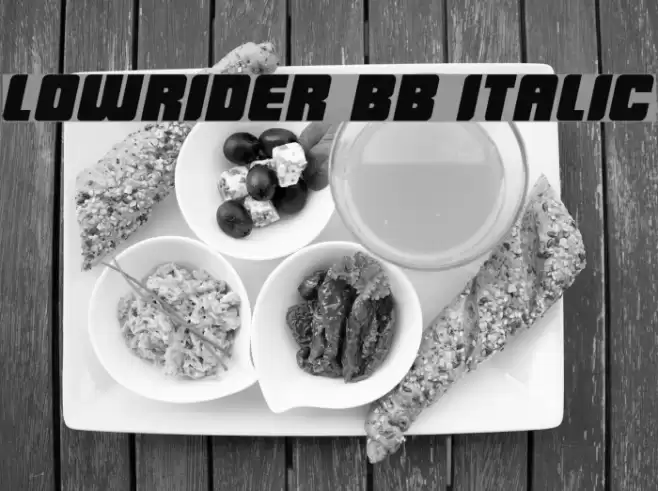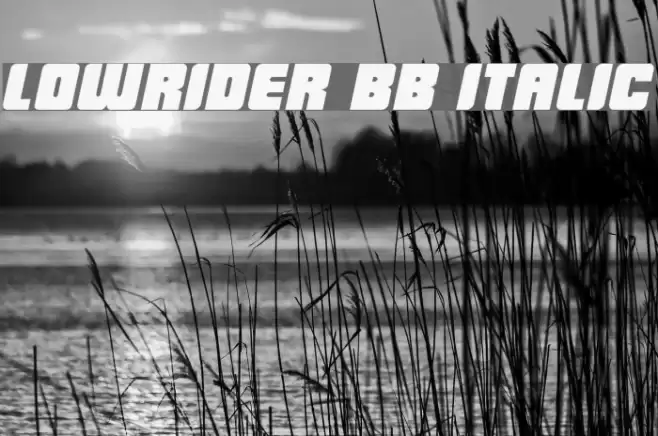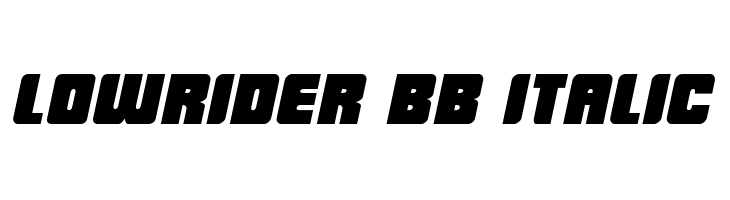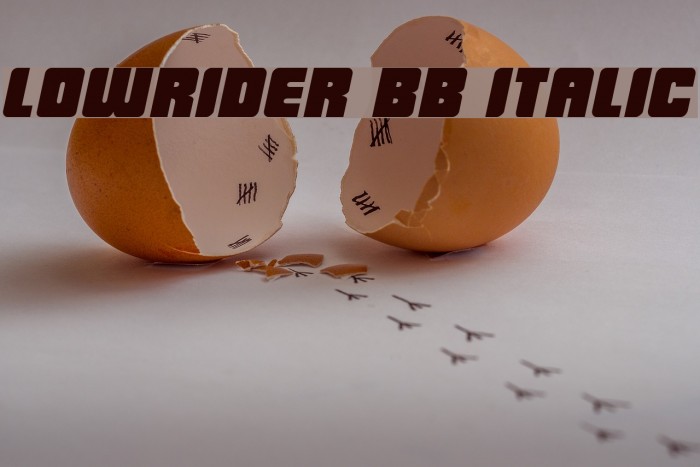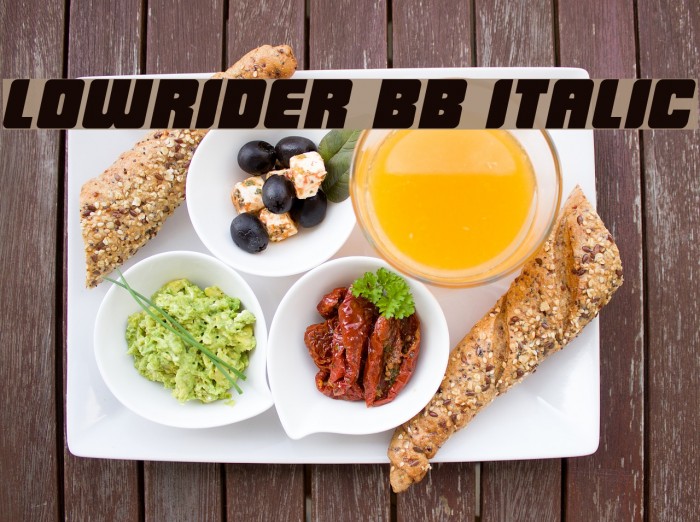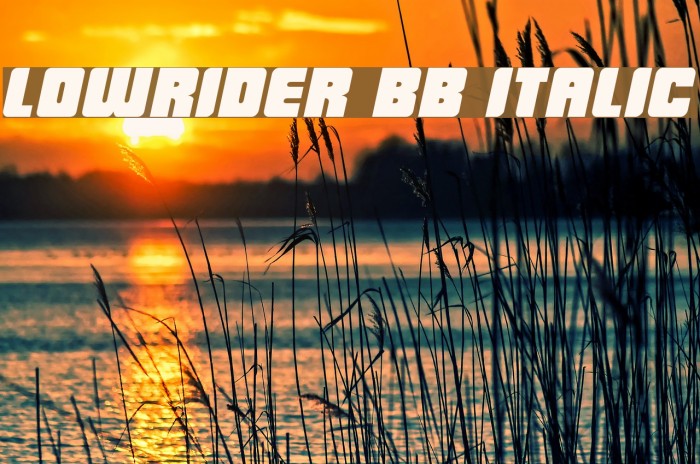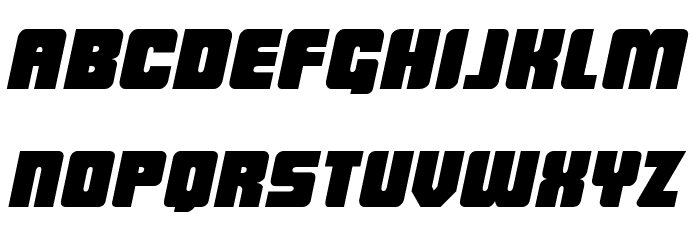
LowRider BB Italic Font
LowRider BB Italic Description
This font features a bold and dynamic style with a distinct italic slant, giving it a sense of movement and energy. The characters are thick and robust, with a slightly condensed width that enhances its impactful appearance. The design includes sharp angles and smooth curves, creating a modern and edgy look. The uppercase and lowercase letters maintain a consistent style, while the numerals and special characters complement the overall aesthetic. This font's strong presence makes it suitable for attention-grabbing designs.
A bold, italic font with a dynamic and modern style from Uncategorized fonts.
- Proposed Projects: Ideal for sports branding, automotive designs, posters, and dynamic advertisements.